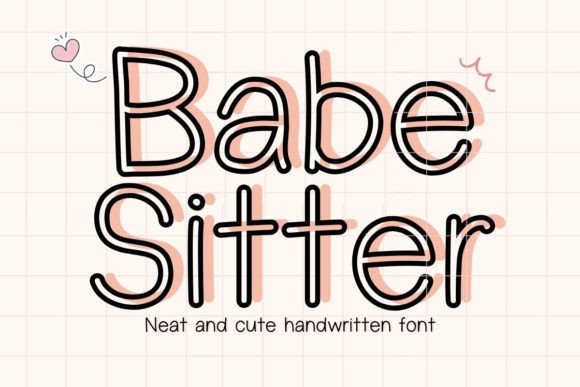
Babesitter Font: Add a Delightful Handwritten Touch to Your Projects
Are you looking for a font that can add a personal and playful touch to your projects? Look no further than the Babesitter Font! This delightful handwritten font is perfect for a variety of applications, from invitations and cards to branding, note-taking, and digital planning. In this article, we’ll take a closer look at the Babesitter Font and explore its features, benefits, and uses.
What is Babesitter Font?
Babesitter Font is a beautiful, handwritten font designed to bring a touch of whimsy and charm to your projects. Its neat and cute style makes it perfect for a wide range of applications, from personal and professional use. Whether you’re creating invitations, greeting cards, or digital planners, the Babesitter Font is sure to add a delightful touch.
Key Features of Babesitter Font
- Handwritten style: The Babesitter Font has a beautiful, handwritten style that’s perfect for adding a personal touch to your projects.
- Neat and cute: The font’s neat and cute style makes it perfect for a wide range of applications, from invitations and cards to branding and digital planning.
- Easy to read: The Babesitter Font is easy to read, making it perfect for body text and headings.
Benefits of Using Babesitter Font
There are many benefits to using the Babesitter Font in your projects. Here are a few:
Why Choose Babesitter Font?
- Adds a personal touch: The Babesitter Font adds a personal and playful touch to your projects, making them stand out from the crowd.
- Perfect for creative projects: The font’s unique and creative style makes it perfect for creative projects, such as invitations, cards, and digital planners.
- High-quality: The font is high-quality and comes with a range of characters, including uppercase and lowercase letters, numbers, and punctuation.
Uses of Babesitter Font
The Babesitter Font is a versatile font that can be used in a wide range of applications. Here are a few ideas:
What Can You Use Babesitter Font For?
- Invitations: Use the Babesitter Font to create beautiful, personalized invitations for weddings, birthday parties, and other special occasions.
- Greeting cards: The font is perfect for creating greeting cards for holidays, birthdays, and other special occasions.
- Branding: Use the Babesitter Font to add a personal touch to your brand’s marketing materials, such as business cards, brochures, and website.
- Digital planning: The font is perfect for creating digital planners, journals, and other digital stationery.
- Note-taking: Use the Babesitter Font to add a touch of personality to your notes and to-do lists.
The Babesitter Font is a beautiful, handwritten font that’s perfect for adding a personal and playful touch to your projects. With its neat and cute style, it’s perfect for a wide range of applications, from invitations and cards to branding, note-taking, and digital planning. Get instant access to the Babesitter Font today and let your creativity flow!